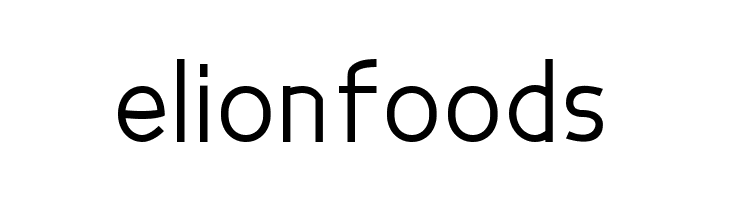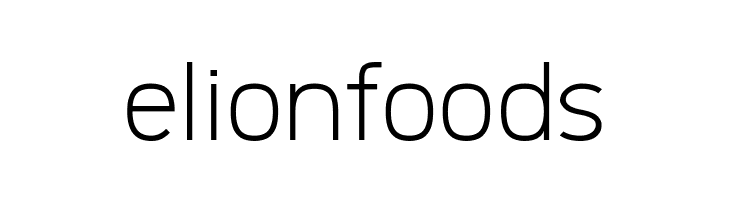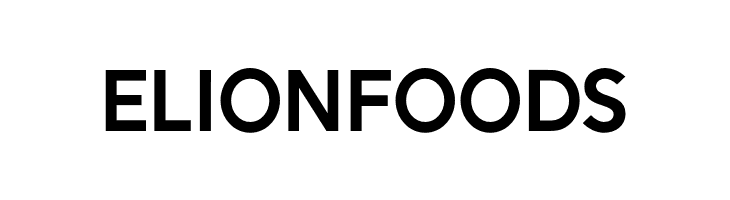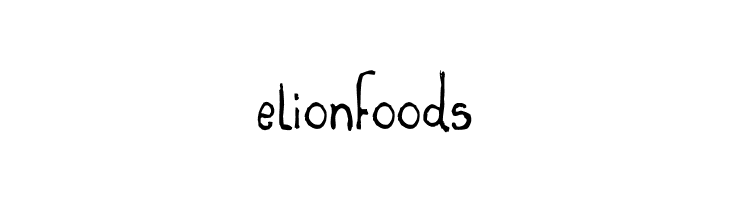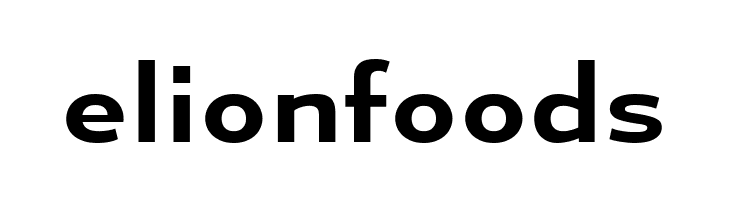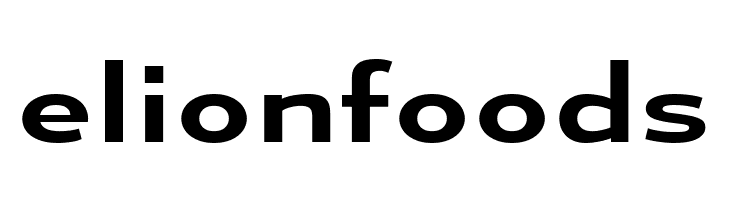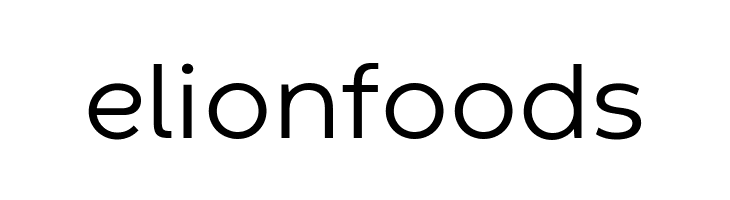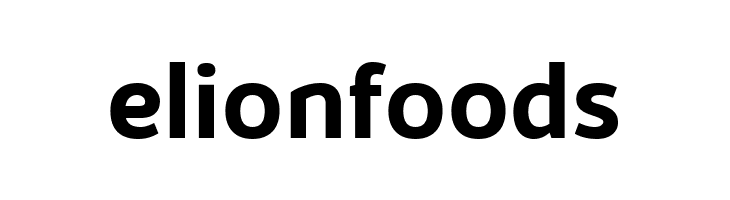
A bold, modern sans-serif font with geometric influences and excellent readability.
A modern, light sans-serif font with low contrast and excellent readability.
A bold, modern sans-serif font with clean lines and excellent readability.
A playful, hand-drawn font with irregular, artistic characters.
A modern, bold sans-serif font with a geometric design and excellent readability.
A modern, bold sans-serif font with a geometric style and excellent readability.
A modern, clean sans-serif font with geometric uniformity and excellent readability.
A clean, modern sans-serif font with a light weight and excellent readability.
A bold, modern typeface with clean lines and excellent readability.
A modern sans-serif font with clean lines and excellent readability.